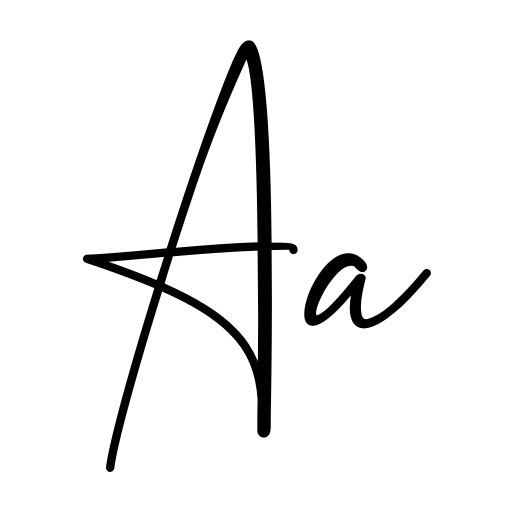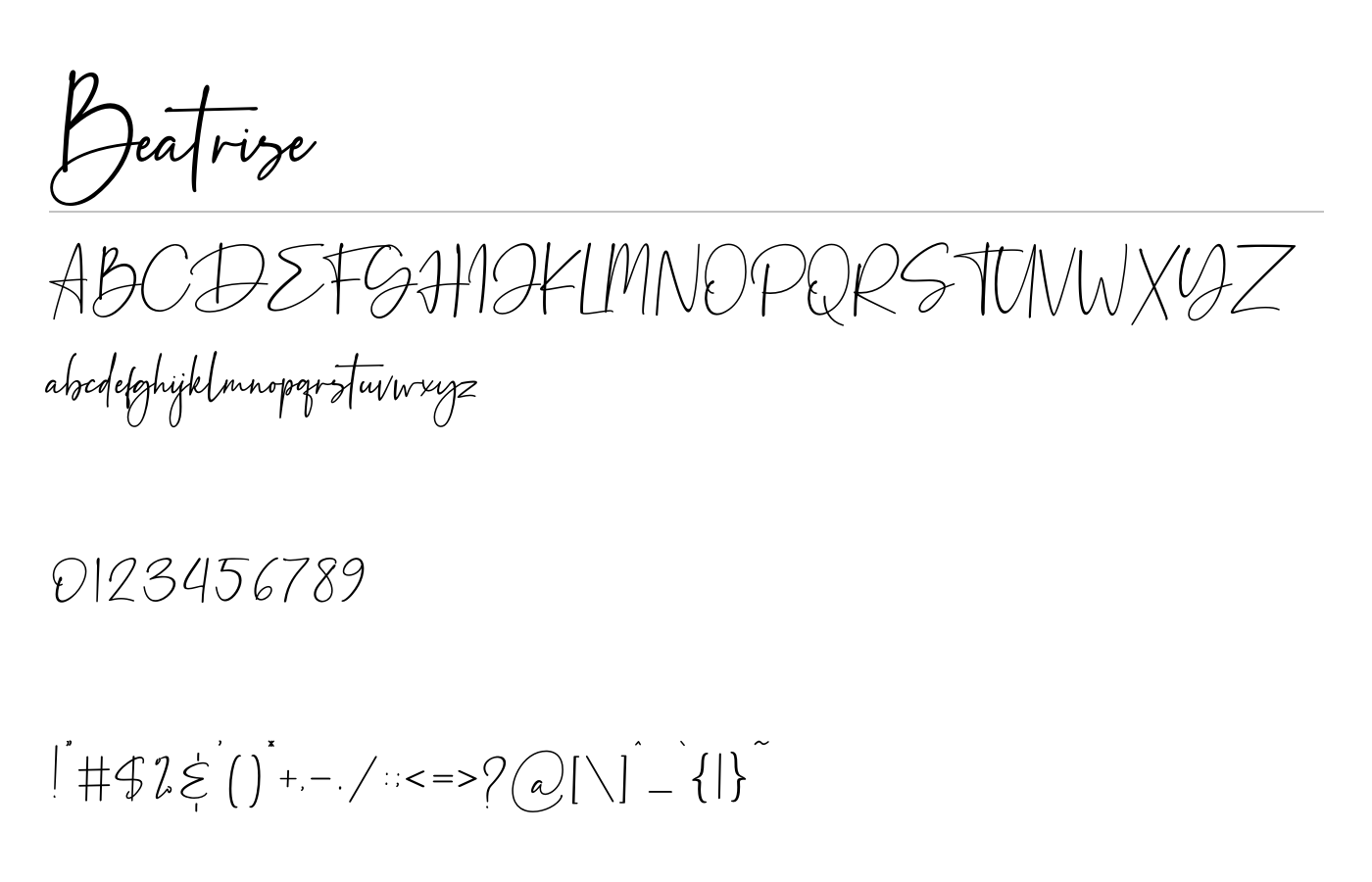
Beatrise is a delicate and elegant handwritten script font that combines airy, slender strokes with a playful yet refined style. Its light weight and slightly irregular letterforms create a natural, personal feel, perfect for adding a touch of sophistication and warmth to invitations, branding, and lifestyle projects. This font works beautifully in logos, packaging, and editorial designs where a unique, handcrafted aesthetic is desired.
Beatrise Font